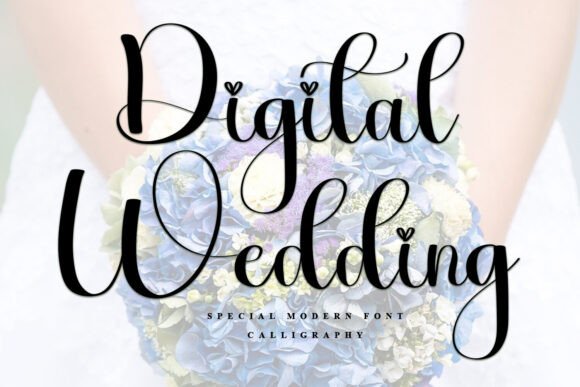
Discover the Elegance of Digital Wedding Font: Elevate Your Designs with a Touch of Sophistication
In the realm of digital design, the right font can make all the difference. It can elevate your project from ordinary to extraordinary, conveying the perfect tone and aesthetic. If you’re on the hunt for a font that embodies charm, elegance, and a dash of modernity, look no further than the Digital Wedding font. This captivating typeface is designed to bring a fresh, distinctive touch to your creations, making it an ideal choice for a wide range of design applications.
The Allure of Digital Wedding Font
Digital Wedding is a font that effortlessly blends simplicity with uniqueness, making it a versatile tool for designers. Its delightful simplicity ensures that it is a breeze to work with, while its unique character guarantees that your outputs will stand out from the crowd. Whether you’re creating flashy YouTube banners, crafting captivating logo mock-ups, or sending out wedding invitations that exude romance, Digital Wedding is your ideal choice.
This font is not just about aesthetics; it’s also practical. It’s designed to infuse an air of progress and creativity into your business. With Digital Wedding, you can enhance your crafts, bedazzle your ID cards, or give your flyers a touch of sophistication. The possibilities are endless, and the results are sure to be stunning.
Bringing Your Design Visions to Life
Digital Wedding font is more than just a typeface; it’s a design solution that can help you bring your visions to life. Its elegant and charming appearance makes it perfect for a variety of design projects, including:
- YouTube Banners: Create eye-catching banners that showcase your channel’s personality and style.
- Logo Mock-Ups: Craft captivating logos that leave a lasting impression on your audience.
- Wedding Invitations: Send out romantic and elegant invitations that set the tone for the big day.
- ID Cards: Add a touch of sophistication to your ID cards, making them stand out with a professional and sleek look.
- Flyers: Give your flyers a boost of elegance and refinement, making them more effective at capturing attention.
The Benefits of Using Digital Wedding Font
So, what makes Digital Wedding font an excellent choice for designers? Here are just a few benefits:
- Unique and Fresh: Digital Wedding offers a fresh and distinctive take on traditional typography, ensuring your designs stand out.
- Elegant and Charming: The font’s elegant and charming appearance makes it perfect for projects that require a touch of sophistication.
- Versatile: Digital Wedding is versatile and can be used for a wide range of design applications, from digital projects to print materials.
- Easy to Use: The font’s simplicity ensures that it’s easy to work with, even for those with limited design experience.
Tips for Getting the Most Out of Digital Wedding Font
To truly harness the power of Digital Wedding font, here are some tips:
- Experiment with Sizes: Play around with different font sizes to find the perfect balance for your design.
- Pair it with Other Fonts: Combine Digital Wedding with other fonts to create a unique and visually appealing typography.
- Use it for Headings: Digital Wedding is perfect for headings and titles, where its elegance and charm can shine.
- Add a Personal Touch: Use the font to add a personal touch to your designs, making them more relatable and engaging.
In conclusion, Digital Wedding font is a game-changer for designers looking to elevate their projects with a touch of elegance and sophistication. Its unique blend of simplicity and charm makes it a versatile tool that can be used for a wide range of design applications. Whether you’re a seasoned designer or just starting out, Digital Wedding is an excellent choice for anyone looking to create stunning designs that stand out from the crowd.